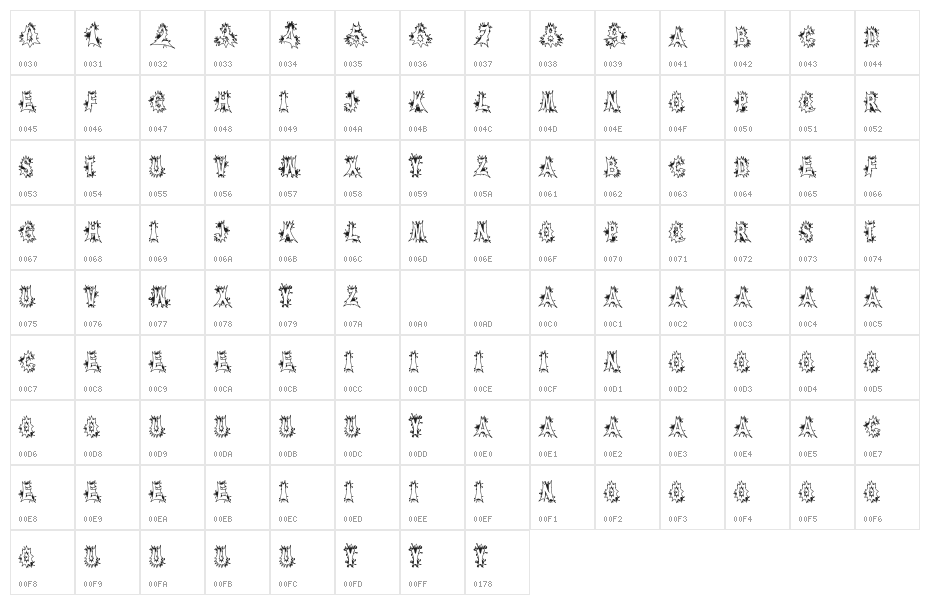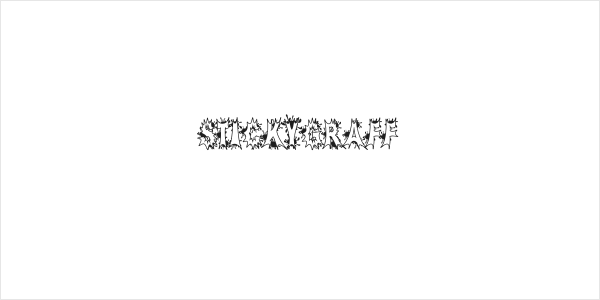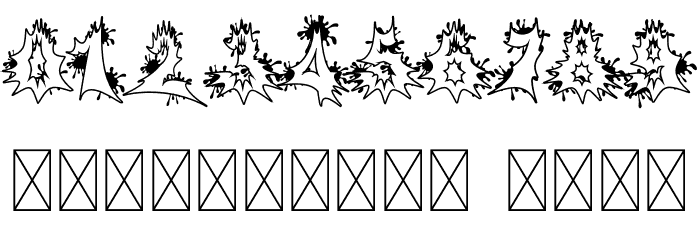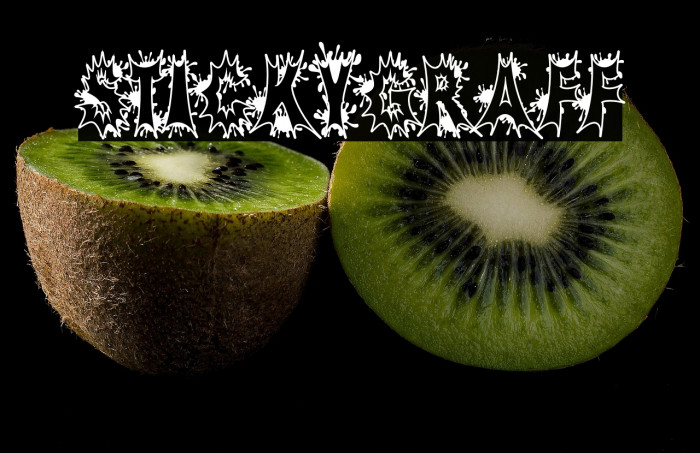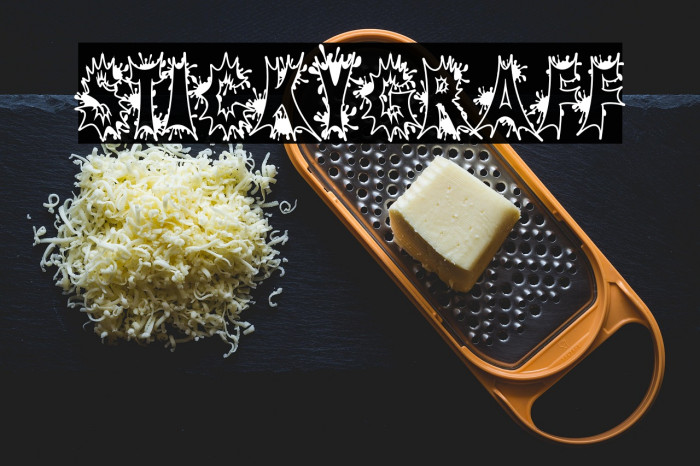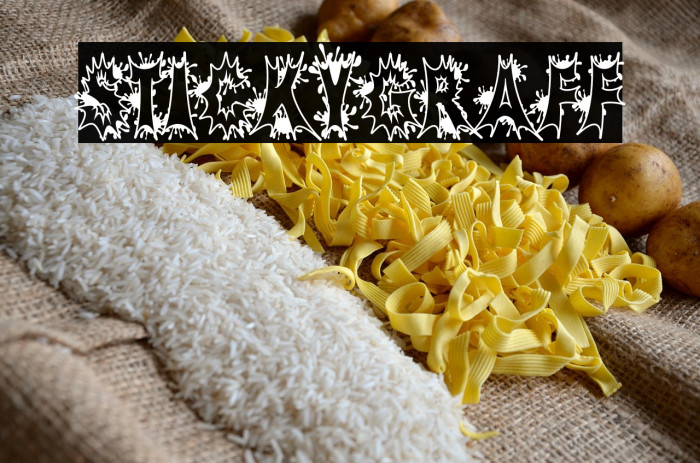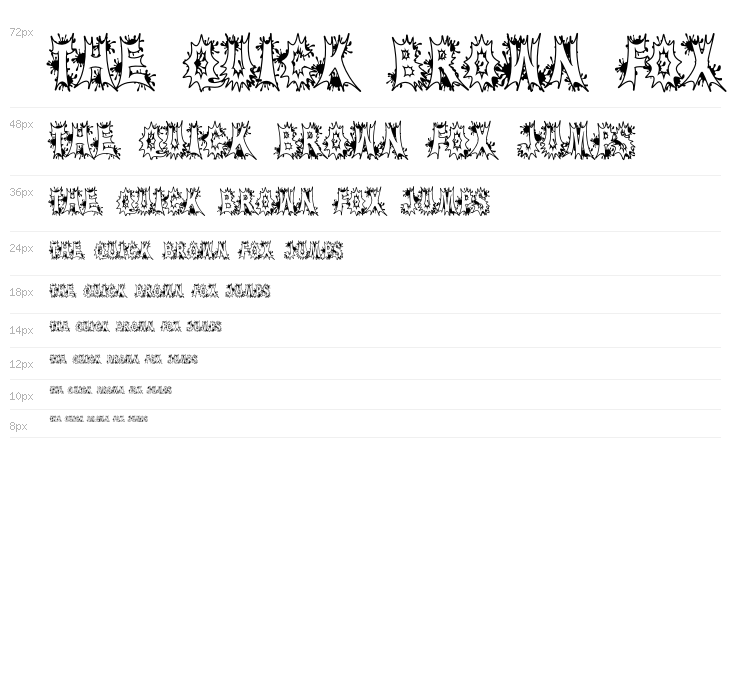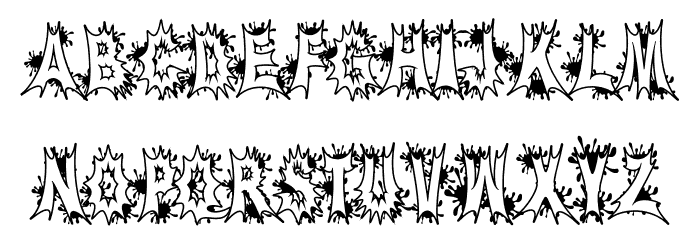
STICKYGRAFF Font
STICKYGRAFF Description
This font features a bold and edgy graffiti style, characterized by sharp, jagged edges and dynamic, energetic forms. The letters are highly stylized, with an appearance reminiscent of street art and urban culture. Each character is unique, with splatter-like elements that give it a raw, expressive feel. The font is designed to capture attention with its striking visual impact, making it ideal for projects that require a strong, rebellious aesthetic. Its intricate details and bold outlines make it stand out, while maintaining legibility.
| Overall Style | Modern, Urban, Edgy |
| Use Case | Headlines, Posters, Logos |
| Proposed Projects | Ideal for street art designs, urban-themed posters, music album covers, and edgy branding projects. |